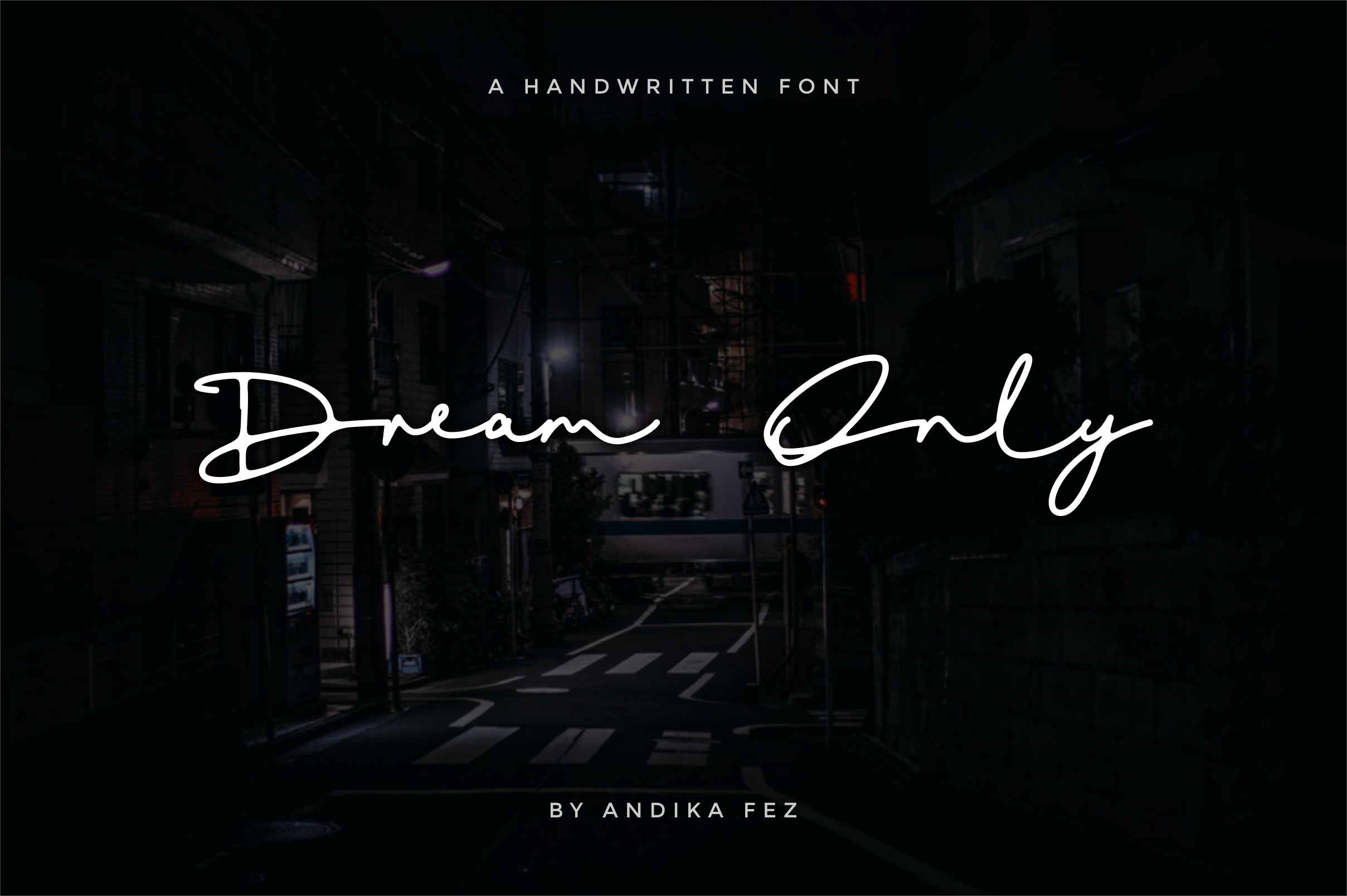
Dream Only Modern Signature Font
Meet Dream Only — a modern signature font that blends elegance and luxury in every curve. Whether you're designing a high-end fashion label, a wedding invite, or a sleek logo for your brand, this font brings a clean, minimal, yet bold touch to your creative projects.
Inspired by geometric shapes and refined strokes, Dream Only balances vintage charm with a modern flair. Perfect for branding, design, and everything in between, it’s a versatile sans serif that stands out with style and confidence.
If you're after a luxurious, elegant vibe that feels both timeless and on-trend, Dream Only is the font for you.